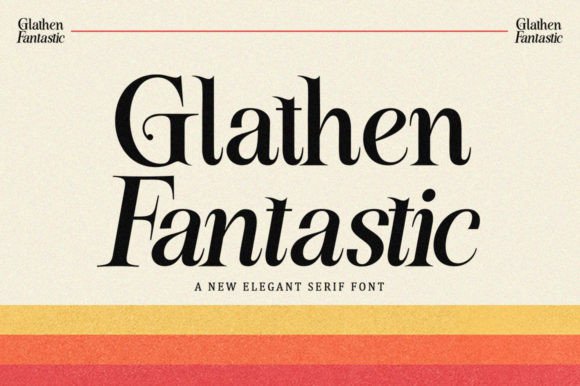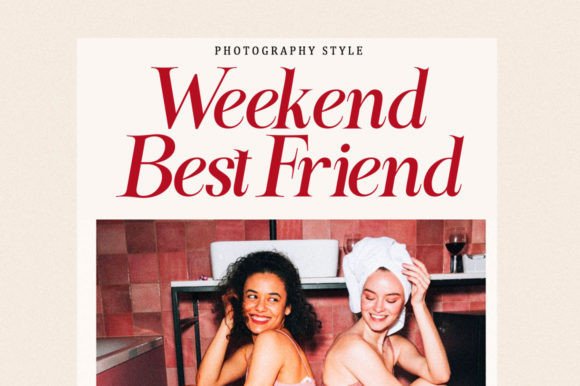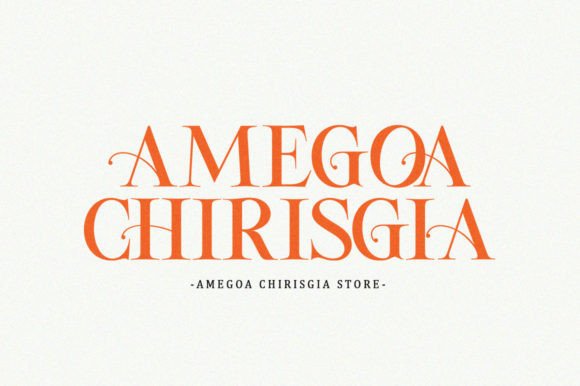
Glathen Fantastic Font
About the Glathen Fantastic Font
The wait is over! The incredible Glathen Fantastic Font is now available for your design toolkit. Glathen Fantastic is my new elegant serif font that will give your projects a touch of luxury and style. It’s perfect for logotypes, branding, monograms and wedding invitations, blog headlines, and more. Browse through all the previews and get as inspired as I was when creating this font.
Glathen Fantastic’s elegant serif forms excel in applications requiring sophistication and readability at larger sizes. It is ideally suited for headlines, logos, short-form text on packaging, and high-end branding materials where a touch of classic luxury is desired. However, its refined detailing makes it less suitable for body text or UI elements where legibility at smaller sizes is paramount.
For optimal impact, pair Glathen Fantastic with a clean sans-serif like Open Sans for body copy, creating a balanced contrast between elegance and clarity. Alternatively, a geometric sans-serif such as Montserrat adds a modern edge, while a script font like Great Vibes provides a touch of whimsicality for specific applications like wedding invitations, depending on the overall design concept.
The font projects an air of refined elegance and understated confidence. Its personality is best described as sophisticated and timeless, making it a strong choice for brands aiming for a premium or heritage feel.
Glathen Fantastic Font Usage Examples
Glathen Fantastic Font Example